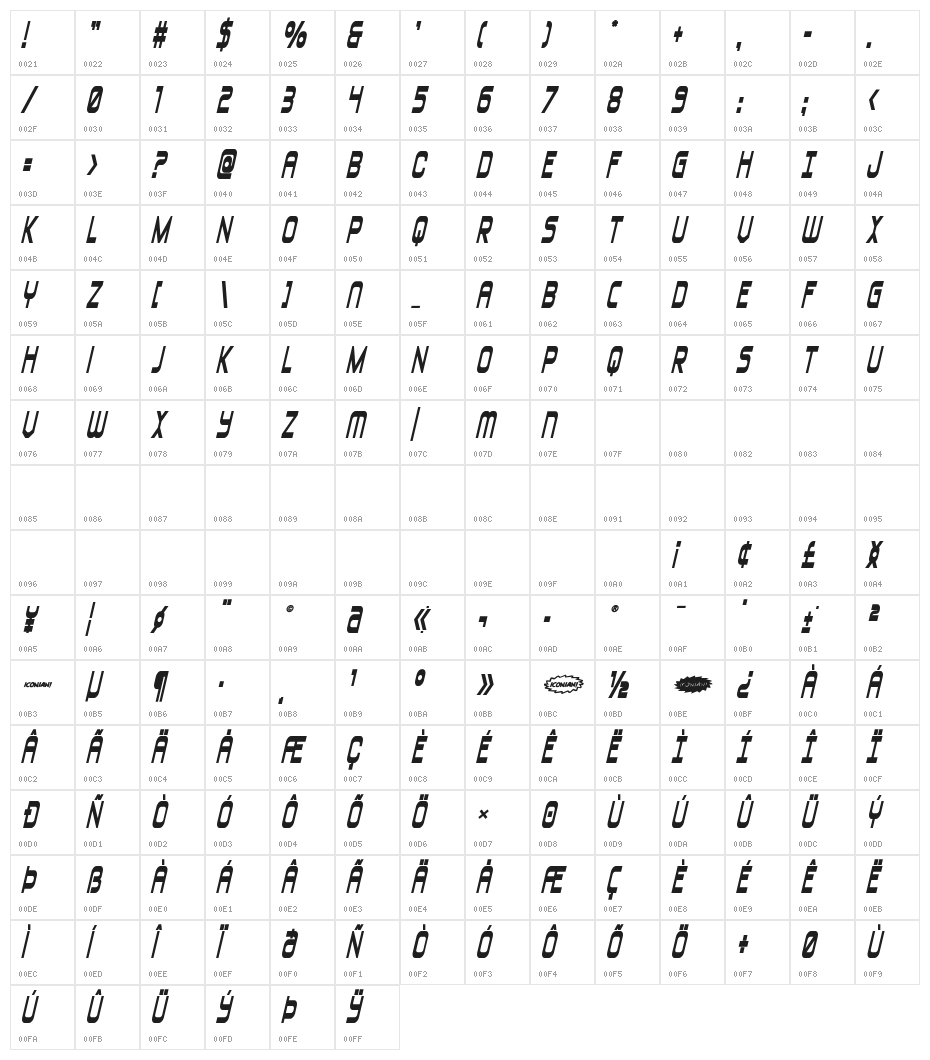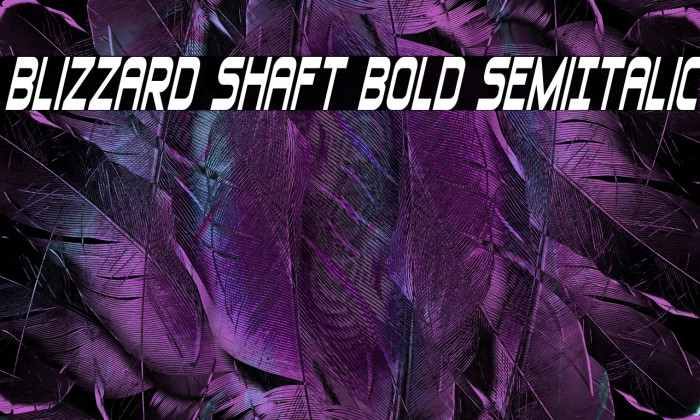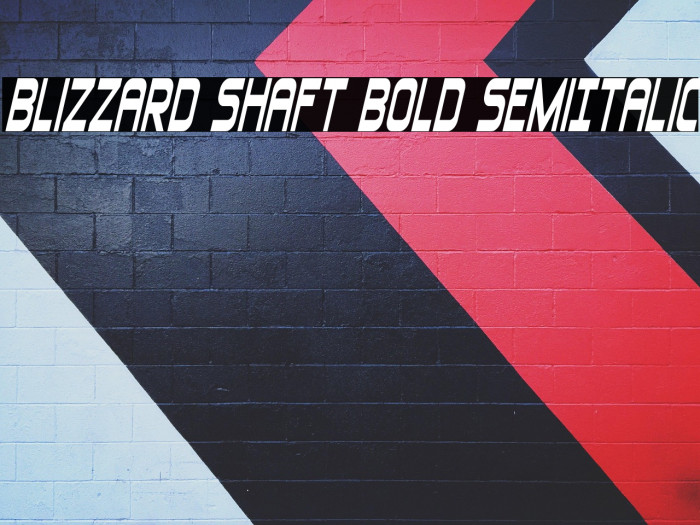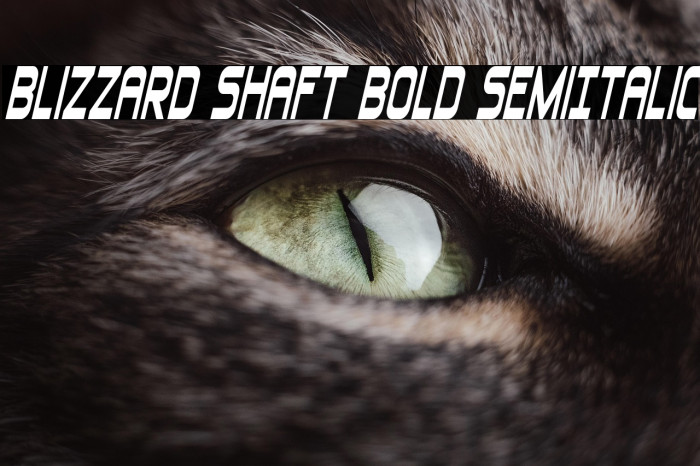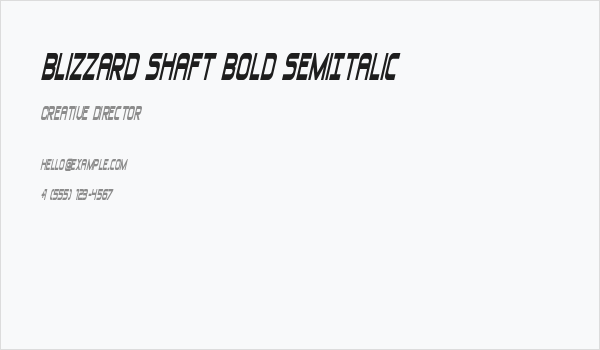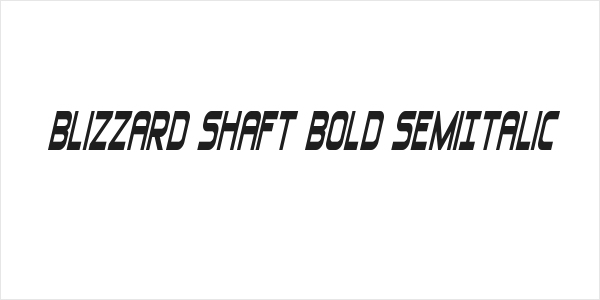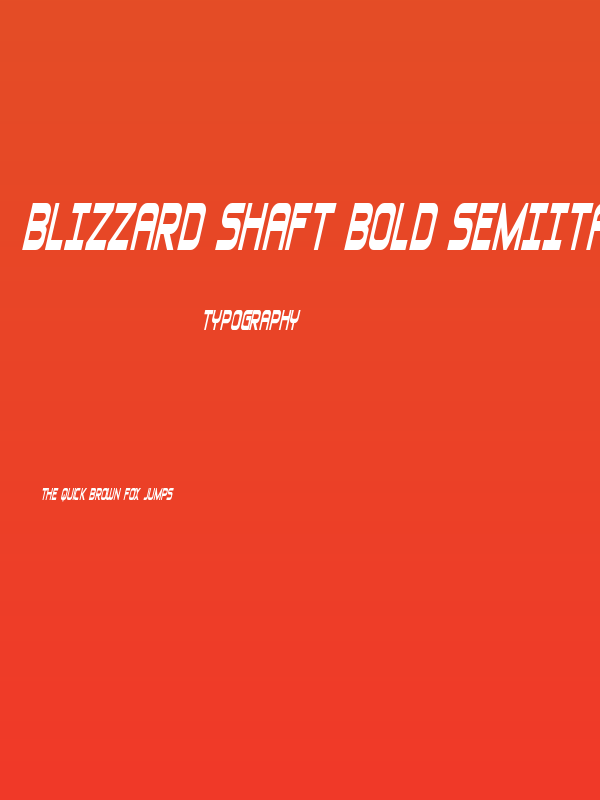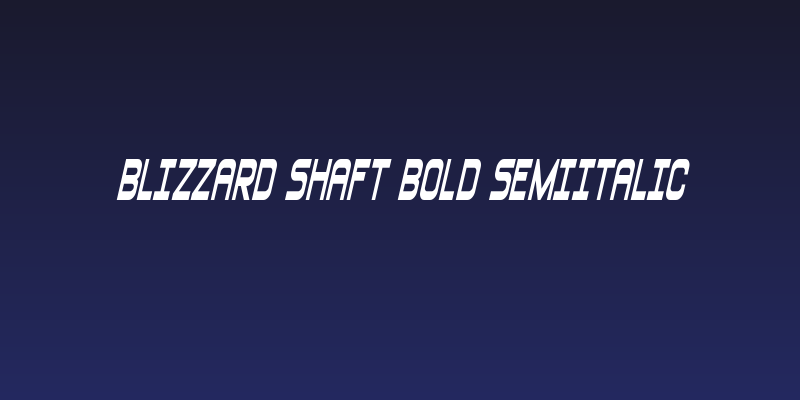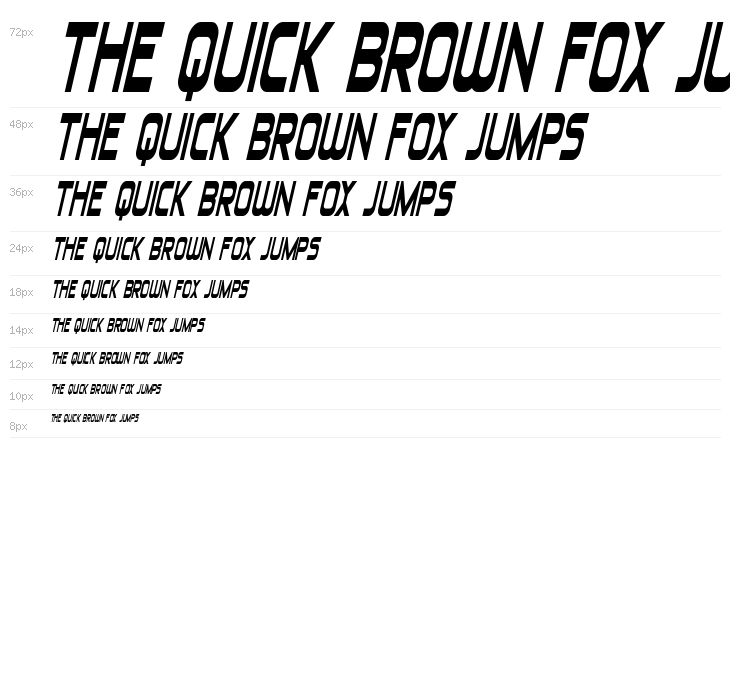
Blizzard Shaft Bold SemiItalic Font
Blizzard Shaft Bold SemiItalic Description
This font exhibits a bold and dynamic style with a semi-italic slant, giving it a sense of motion and energy. The characters are robust and angular, with a modern and futuristic appearance. The uppercase and lowercase letters maintain a consistent style, with sharp edges and a slightly condensed form. The numerals are equally bold, ensuring readability and impact. Special characters are designed to match the overall aesthetic, making them suitable for various design contexts. The font's strong presence makes it ideal for attention-grabbing headlines and logos.